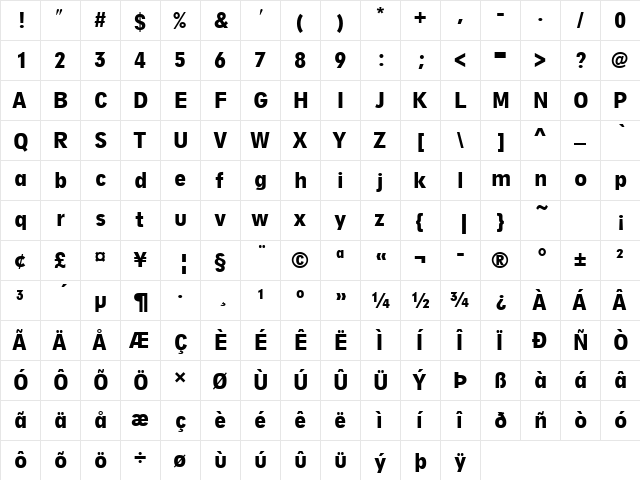
NeuzeitGroTBlaCon Regular
Design Context for NeuzeitGroTBlaCon Typeface
NeuzeitGroTBlaCon takes a measured approach to typography — its balanced proportions and neutral character make it a reliable workhorse for both digital and print work.
Pro Tip: Use NeuzeitGroTBlaCon in both headline and body roles to test its range before committing to a single application.